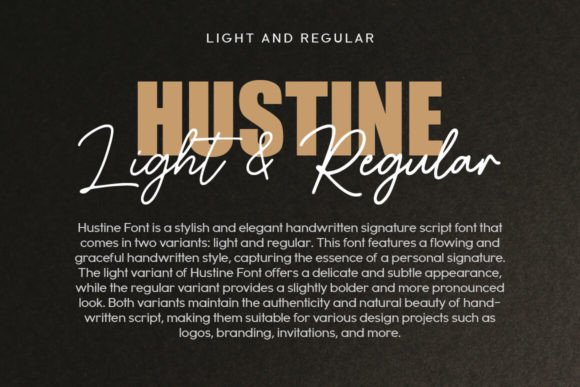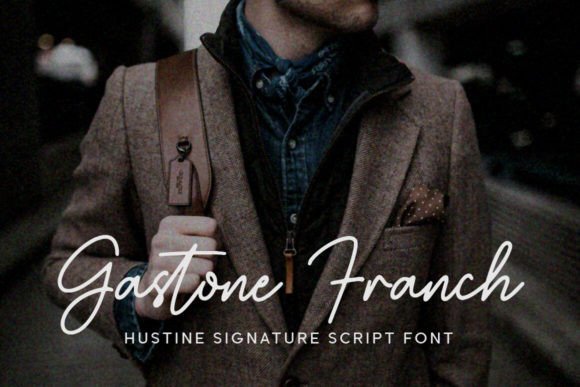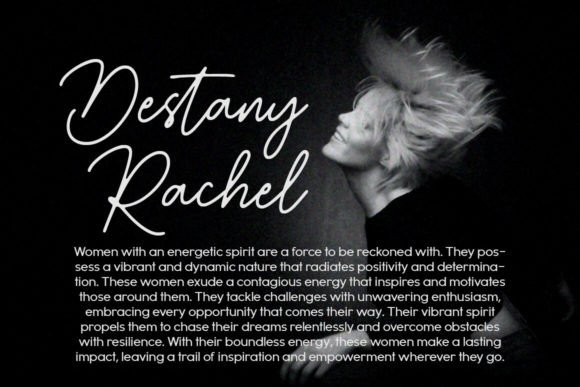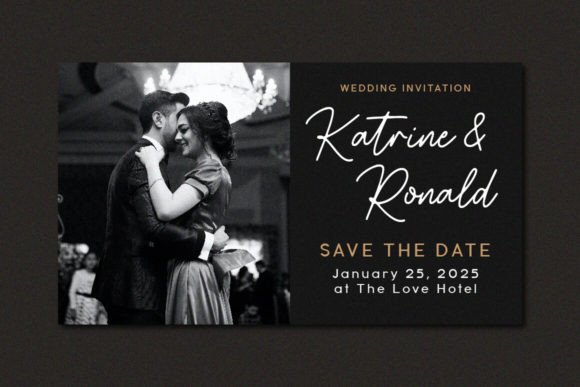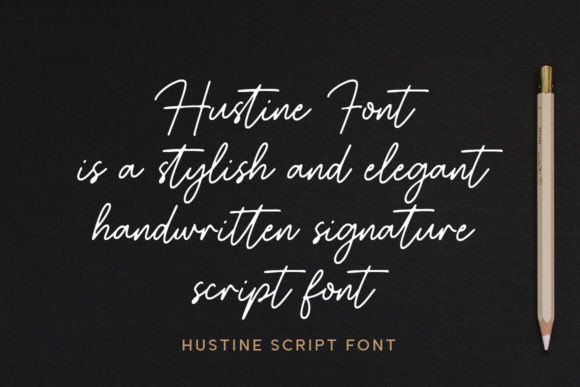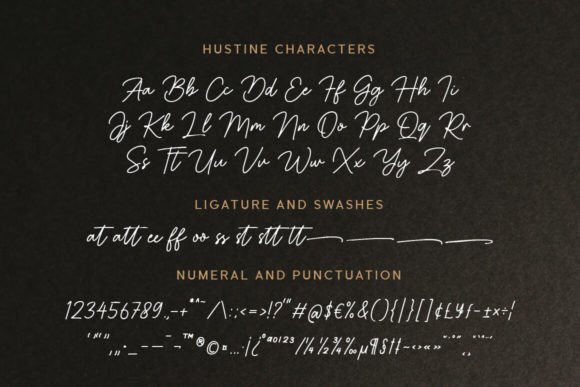
Introduction to Hustine Font
Have you ever been stuck trying to find the perfect font for your creative project, only to end up with a generic, uninspired option that fails to capture the essence of your brand? We’ve all been there. But what if you could add a touch of elegance and sophistication to your design with a single, stylish font? Enter the Hustine Font, a beautiful handwritten signature script font that’s sure to elevate your design game.
With its flowing, graceful lines and natural beauty, the Hustine Font is a high-quality design resource that’s perfect for logos, branding, invitations, and more. And the best part? It’s available in two variants: light and regular, making it easy to customize to suit your needs. Whether you’re a seasoned designer or just starting out, the Hustine Font is a valuable addition to any design toolkit.
Key Features of Hustine Font
- High-quality design for creative projects: Hustine Font is designed to provide a unique and stylish look for your designs, making it an excellent choice for creative projects.
- Unique characteristics: Hustine Font features a unique blend of modern and vintage elements, making it an excellent choice for designers looking to add a touch of elegance to their designs.
- Perfect for digital designs: With its high-quality design and transparent background, Hustine Font is an excellent choice for digital designs, including logos, icons, and graphics.
Honest Review: Hustine Font
As a designer, I’m always on the lookout for high-quality design resources to elevate my creative projects. The Hustine Font caught my eye with its sleek and modern aesthetic, and I was excited to give it a try.
- ✨ Elegant and minimalist design that’s perfect for branding and identity projects.
- ✨ Highly legible and clear even at small font sizes.
- ⚠️ Limited character set, which may be a concern for designers who need a wide range of characters.
- ⚠️ Not suitable for projects that require a bold or dramatic font style.
Overall, I’m impressed with the Hustine Font’s simplicity and elegance. While it may not be suitable for every project, it’s a great choice for designers who want a high-quality, modern font for their creative projects. The transparent background also makes it easy to customize and integrate into various design resources.
Hustine Font
Tips for Getting the Most Out of Hustine Font
To get the most out of the Hustine Font, experiment with different font sizes and styles to create a visually appealing design. Use the font’s transparent background to create unique and eye-catching designs.
The Hustine Font is perfect for use in a variety of creative projects, including graphic design, digital art, and branding. Its unique design and transparent background make it a great choice for designers and artists looking to add a touch of creativity to their work.